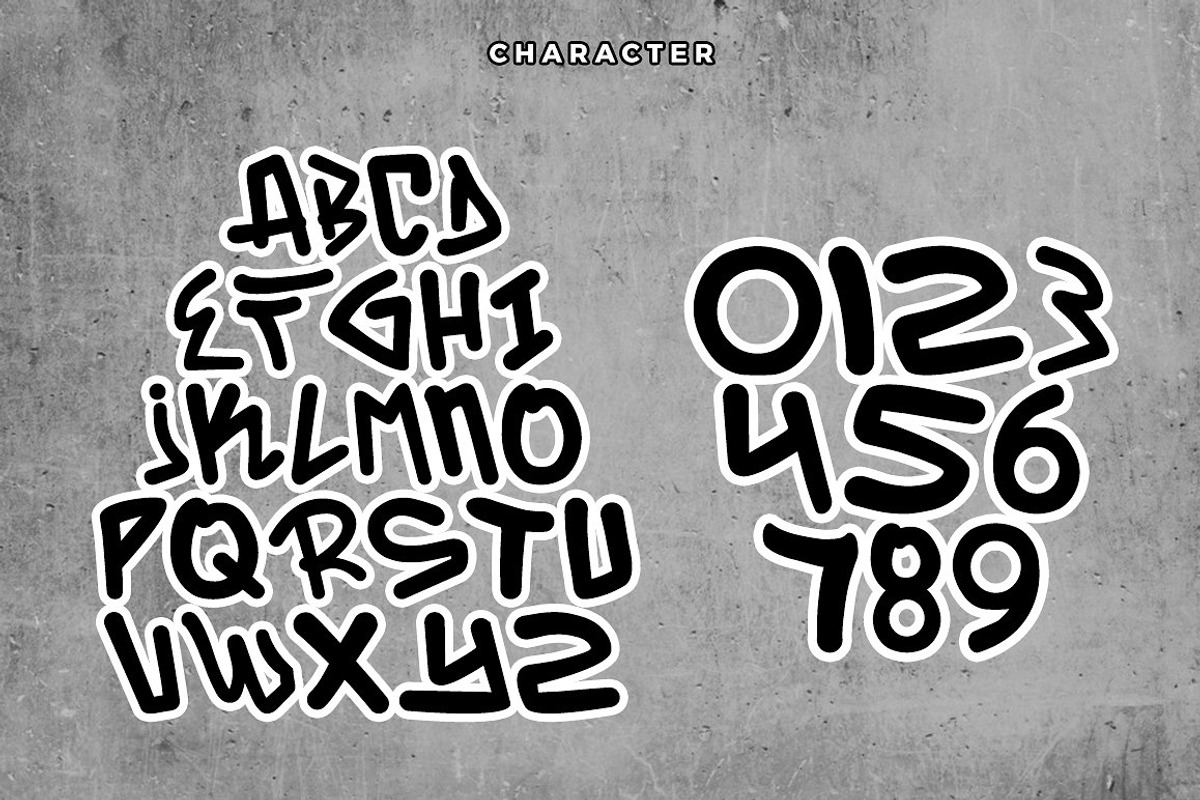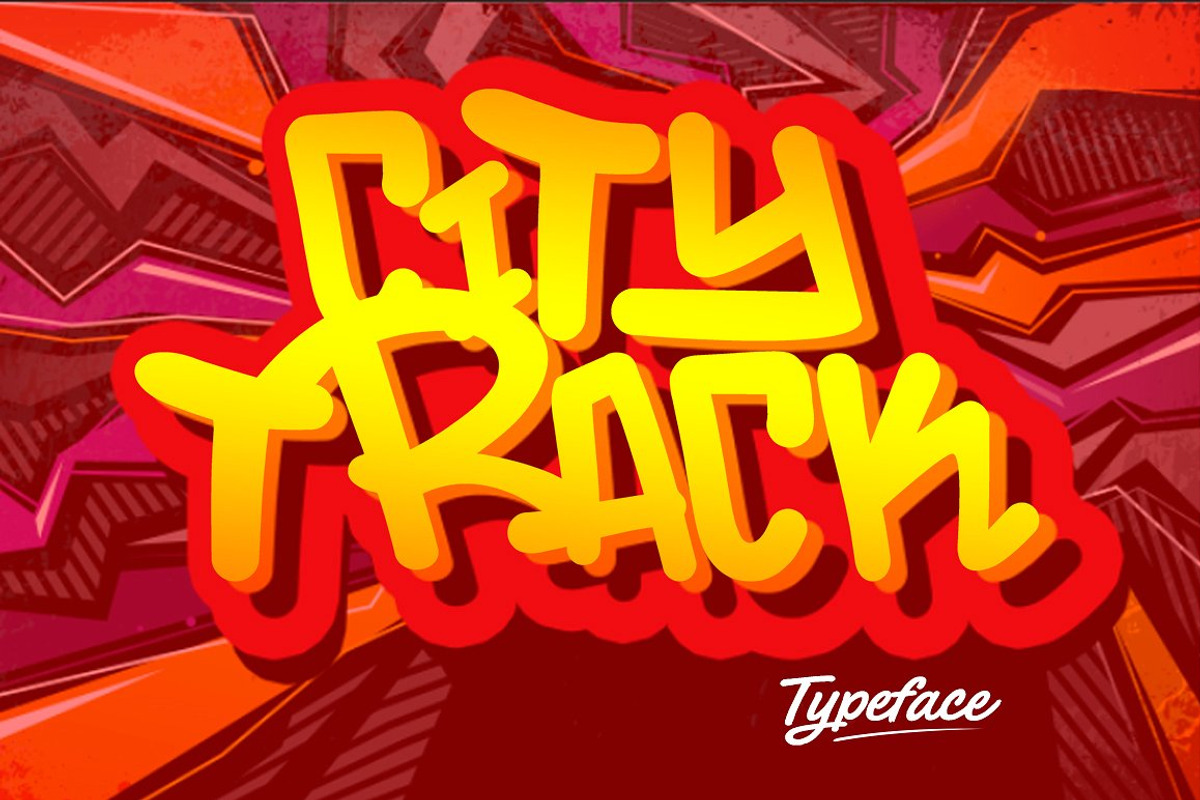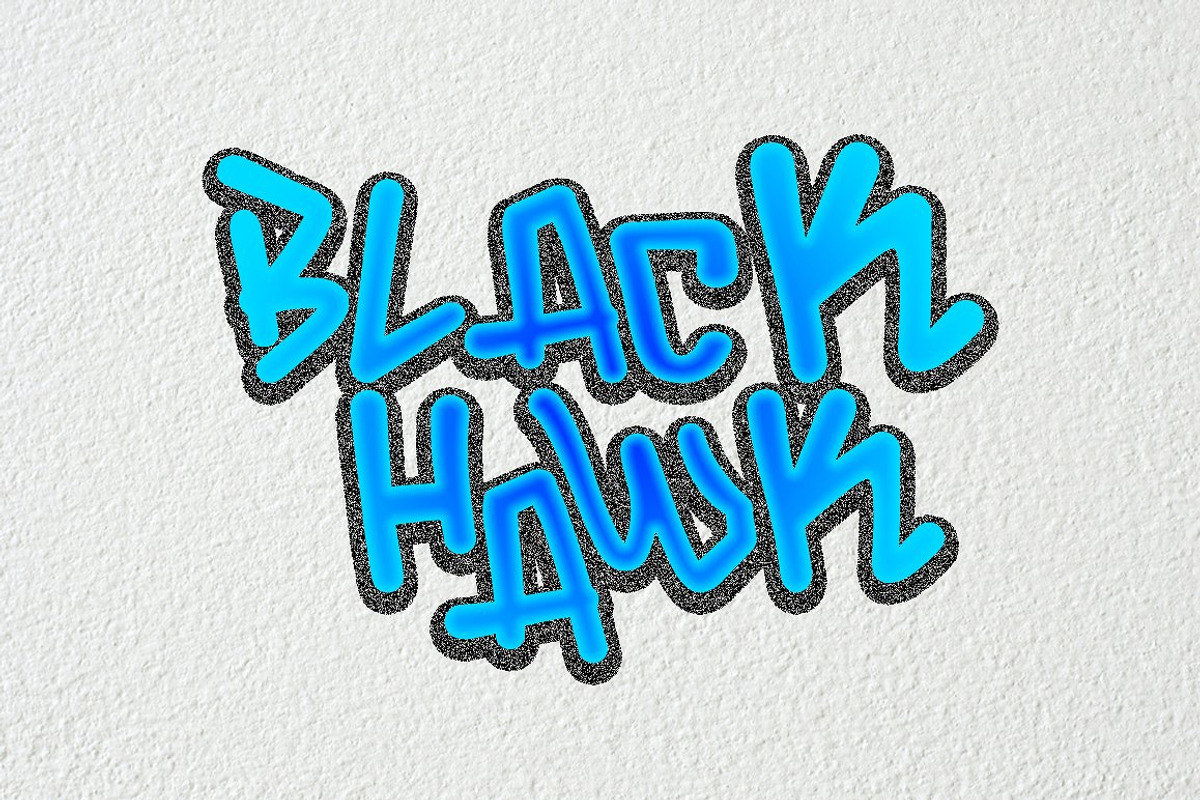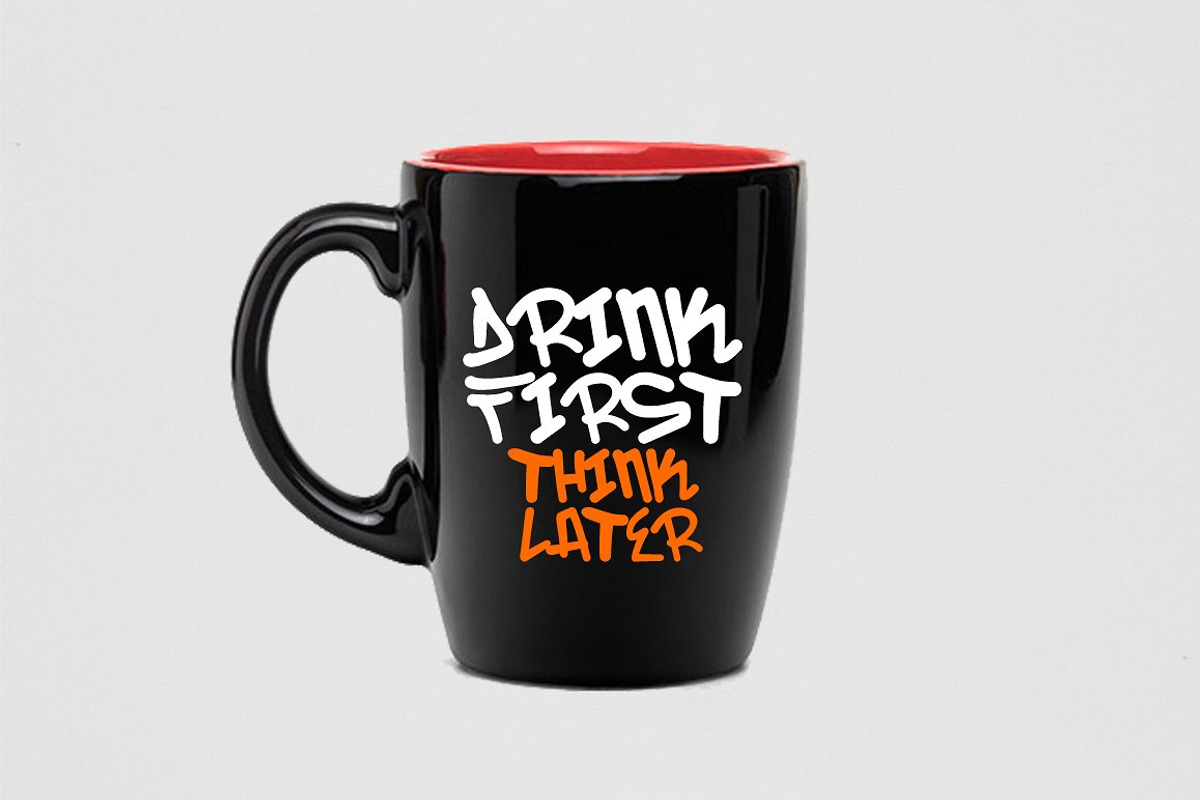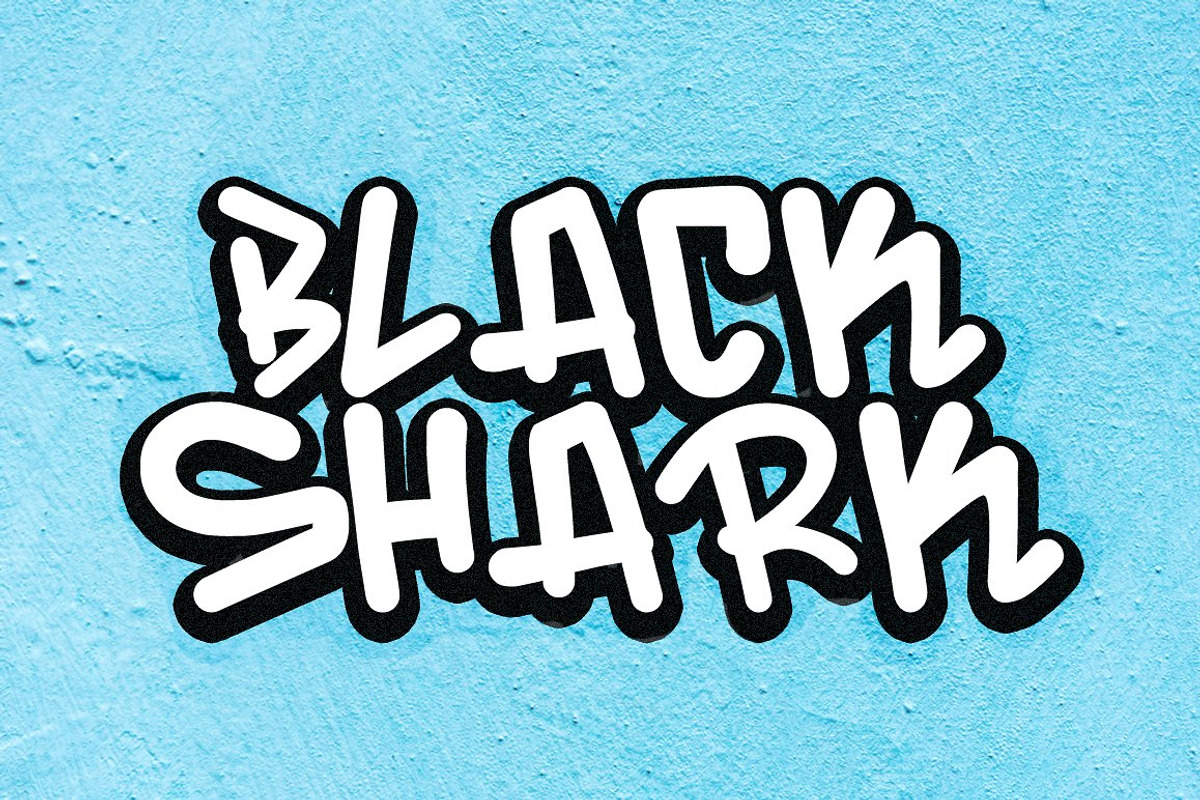
City Track Typeface
City Track Typeface by DuoFankaar is a font selected for branding, posters, packaging, typography.
Why City Track Typeface is worth a look
City Track Typeface by DuoFankaar fits naturally into Branding, posters, packaging, typography.